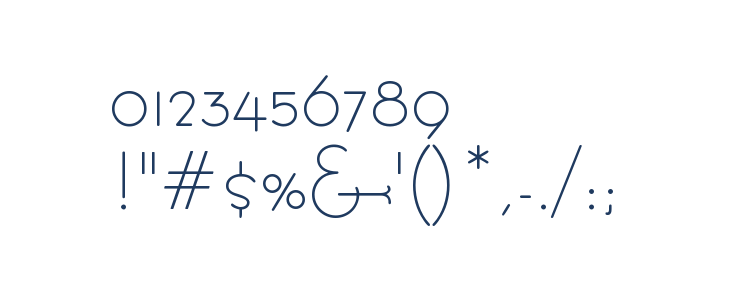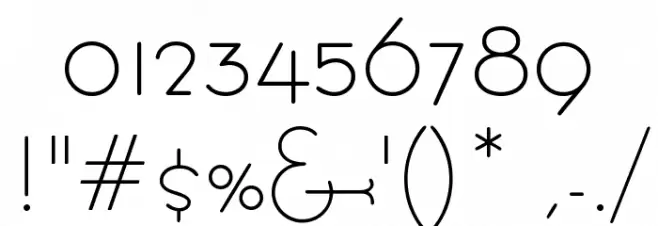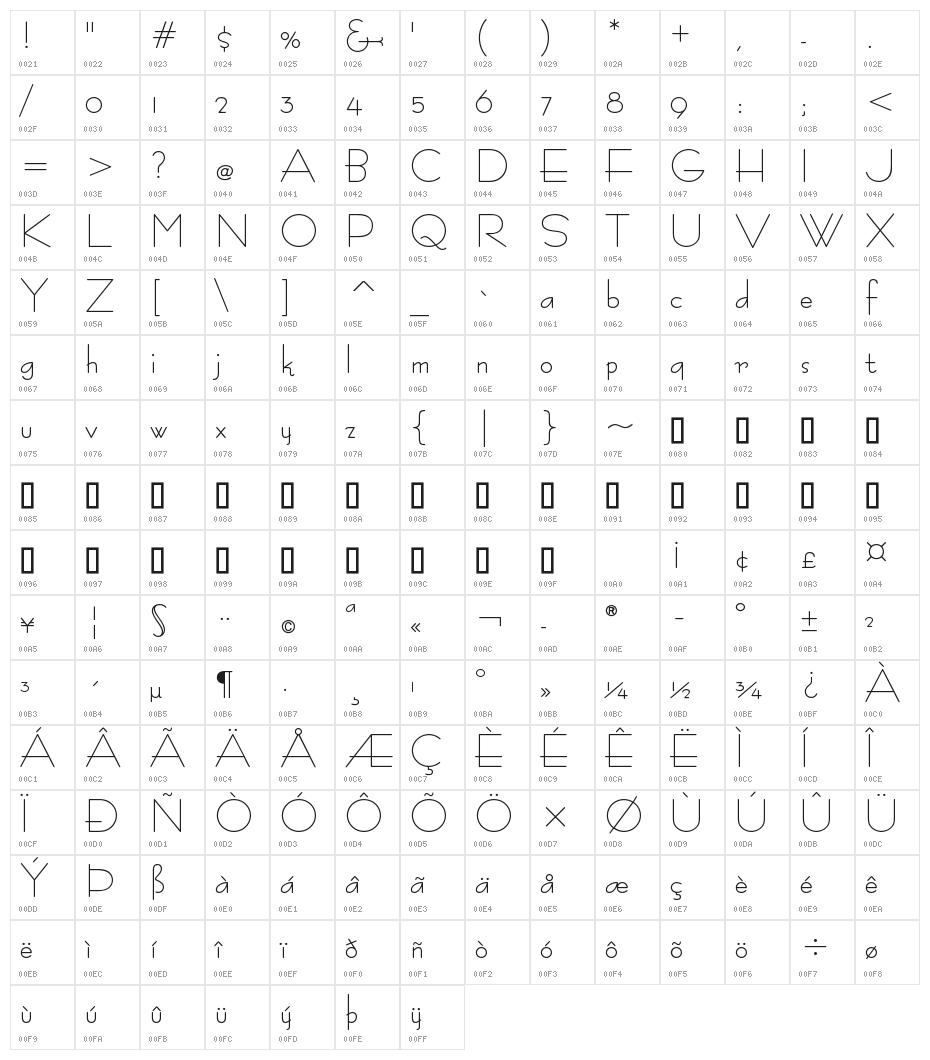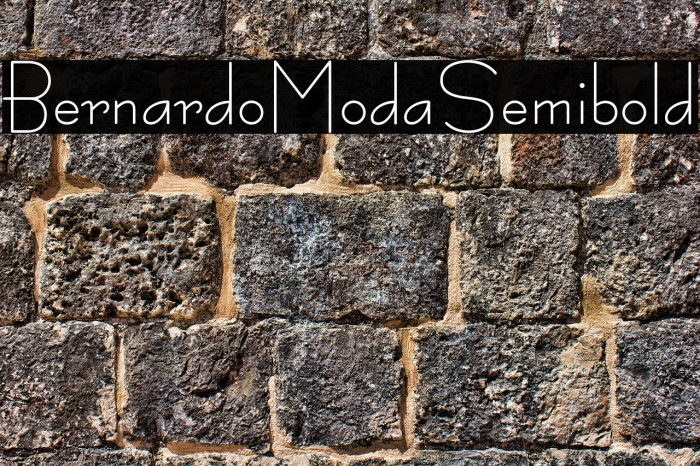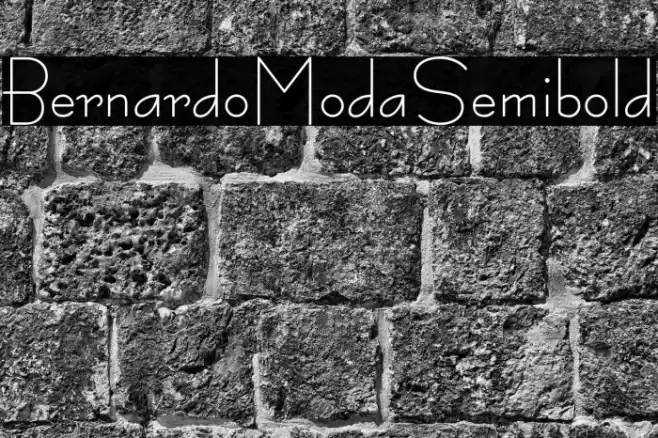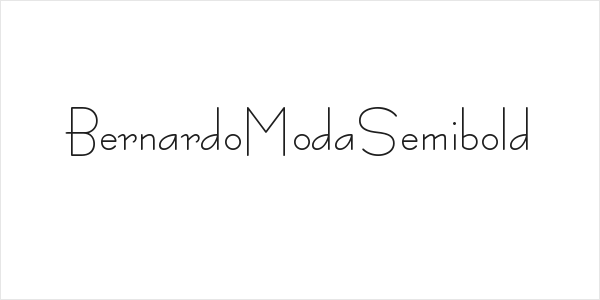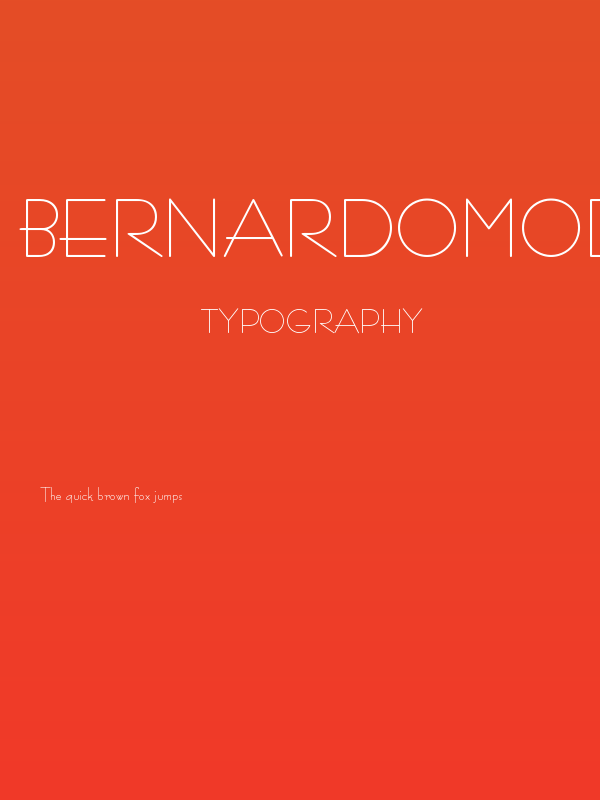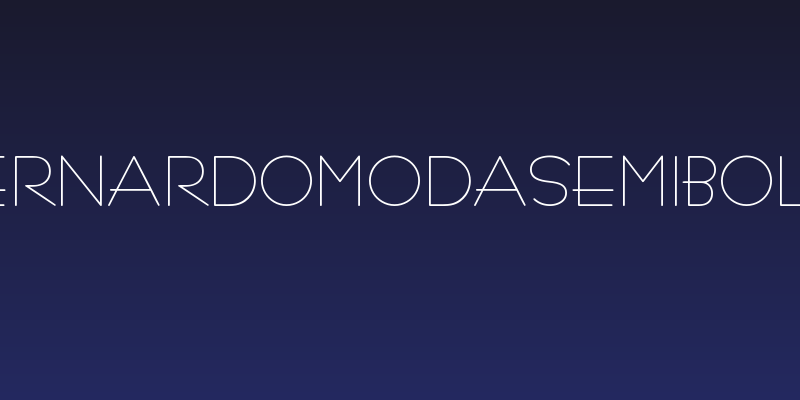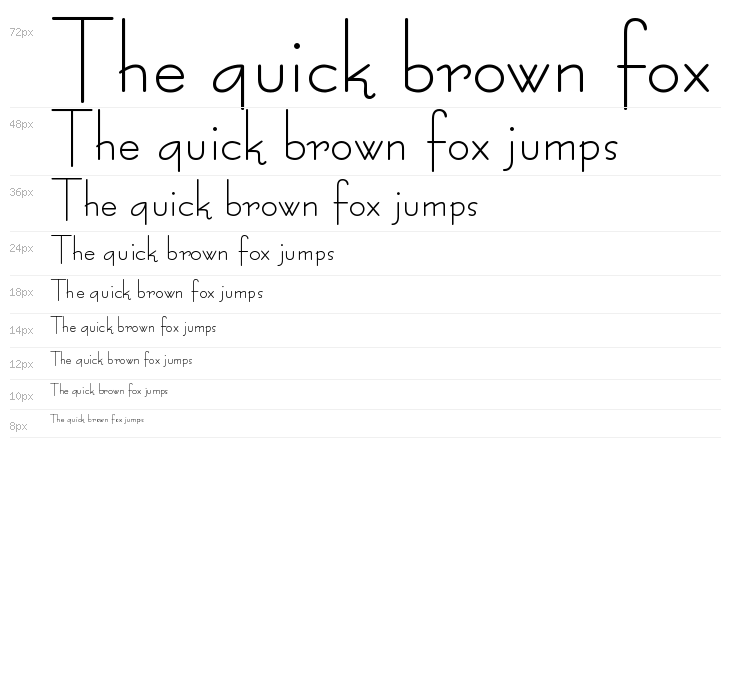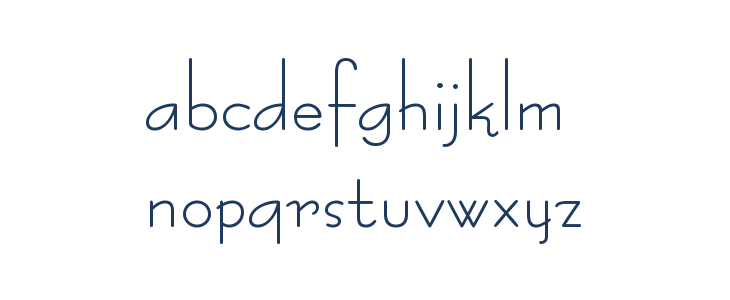
BernardoModaSemibold Font
BernardoModaSemibold Description
This font features a modern and sleek design with clean, geometric lines and a minimalist aesthetic. The uppercase letters are characterized by their uniform height and consistent stroke width, creating a balanced and harmonious appearance. The lowercase letters maintain the same geometric precision, with rounded forms that add a touch of softness to the overall look. The numerals are clear and legible, designed to complement the alphabet with similar proportions and style. Special characters are thoughtfully integrated, maintaining the font's cohesive design. This font is versatile, suitable for a variety of design applications where clarity and modernity are desired.
Use CaseHeadlines, Body text, Logos
Proposed ProjectsIdeal for branding, editorial design, digital interfaces, and signage.